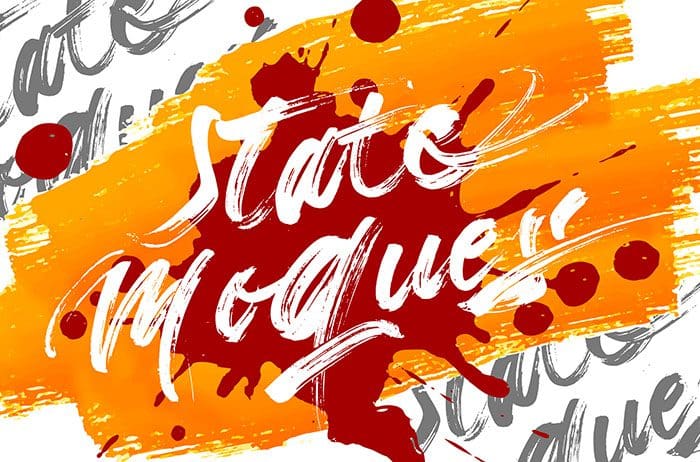
State Moques Brush Font
State Moques is a one-of-a-kind brush font with a vibrant feel. It will turn any design idea into a piece of work. Thanks to Vunira Studio for sharing this font! Take a look at this portfolio for more of his stunning fonts.